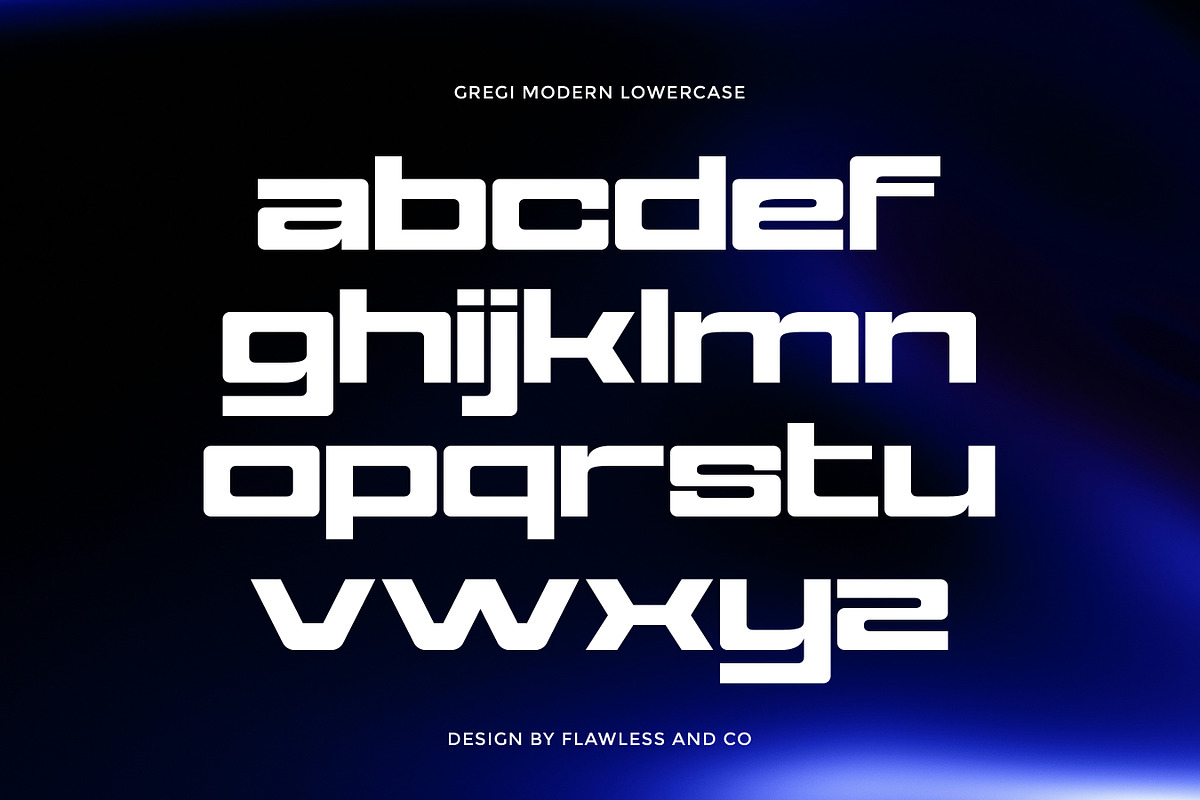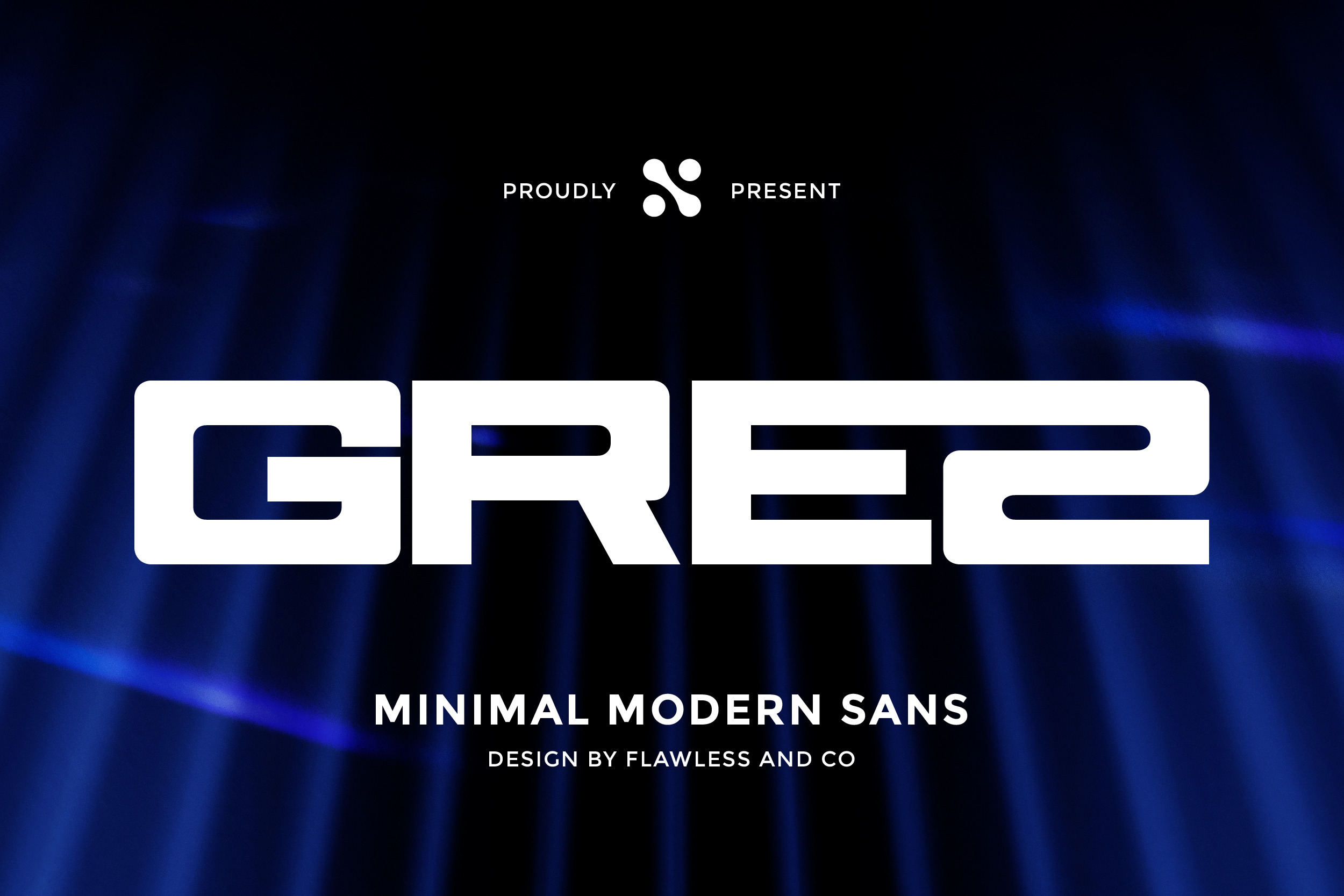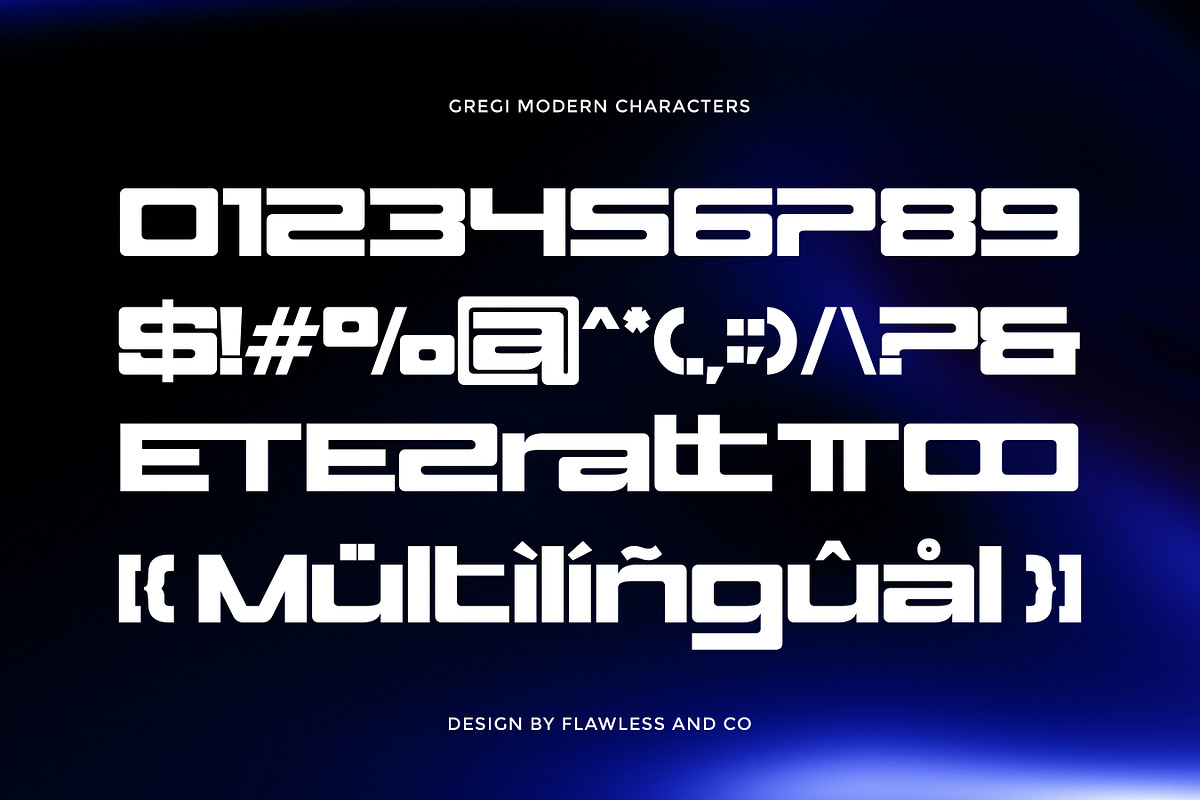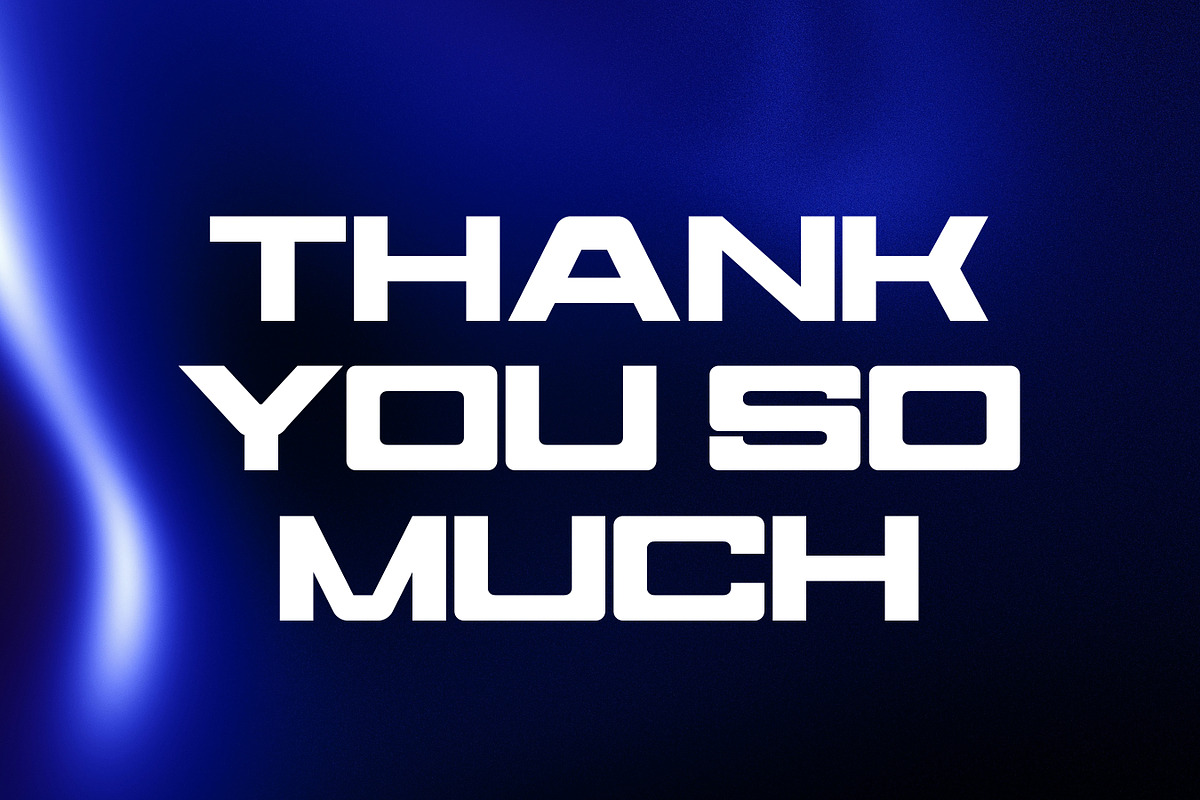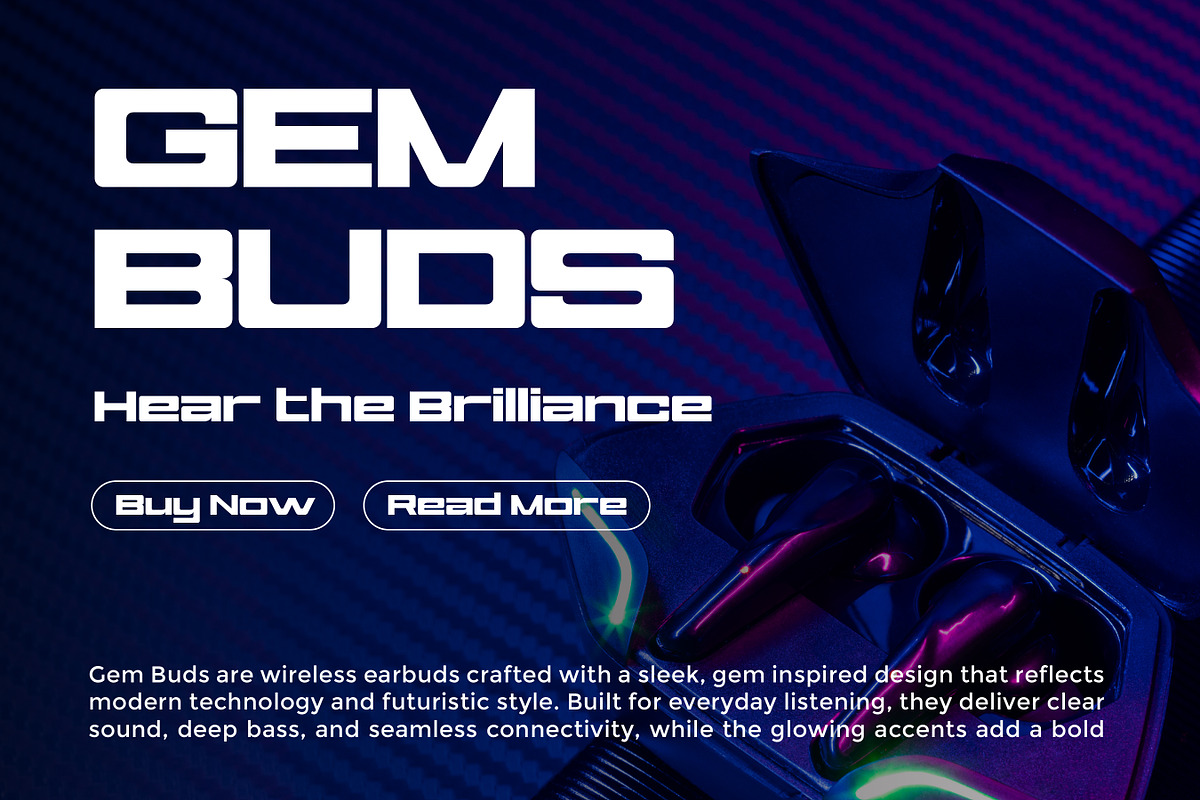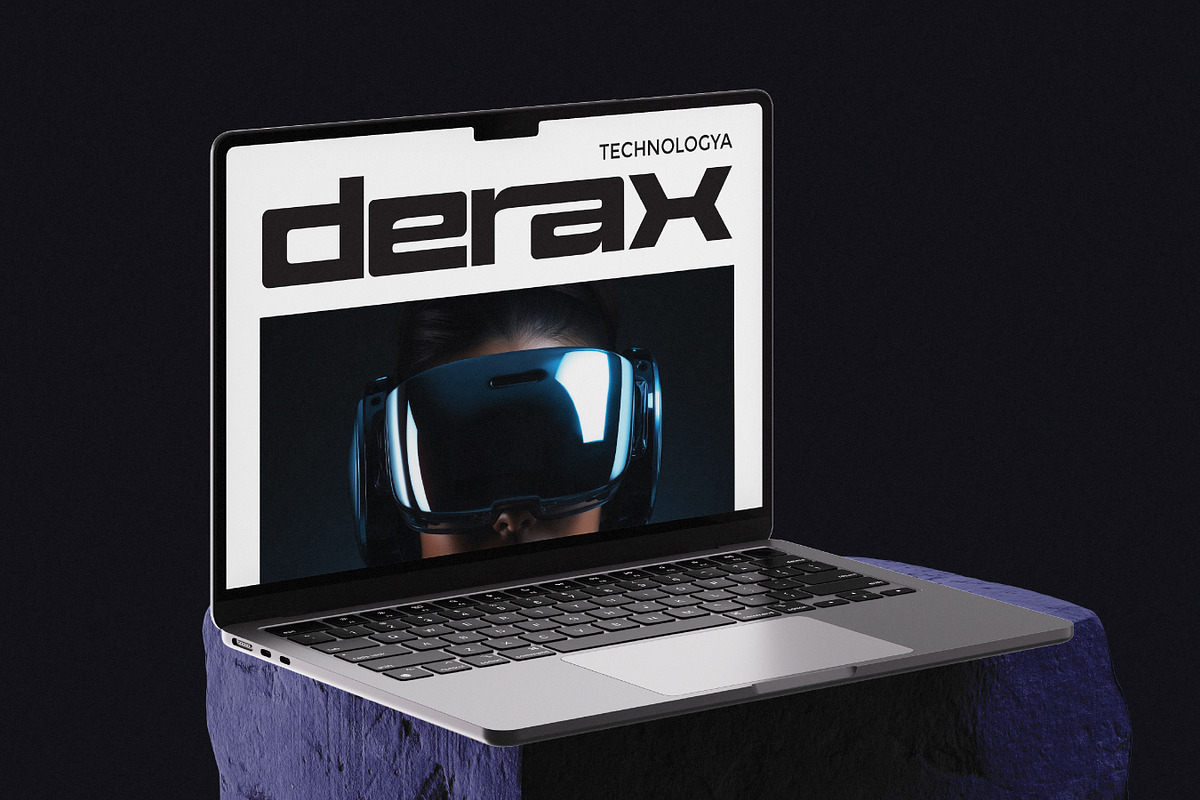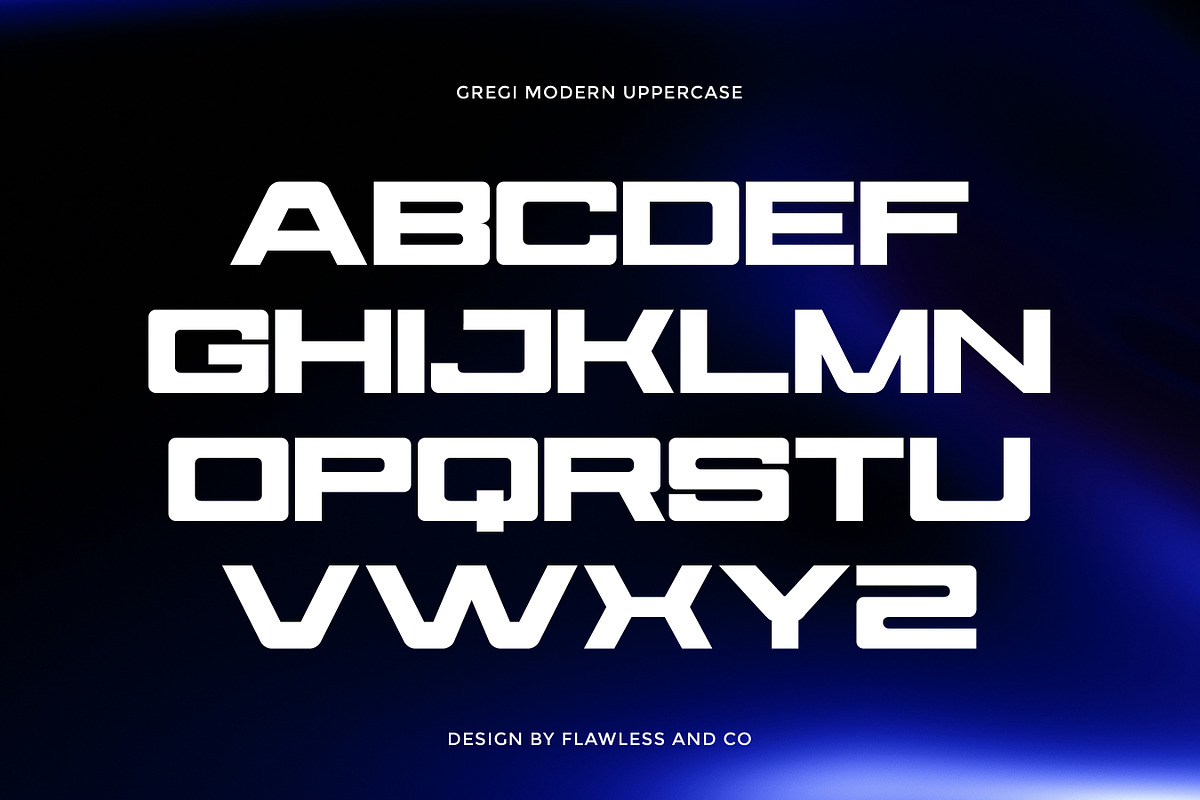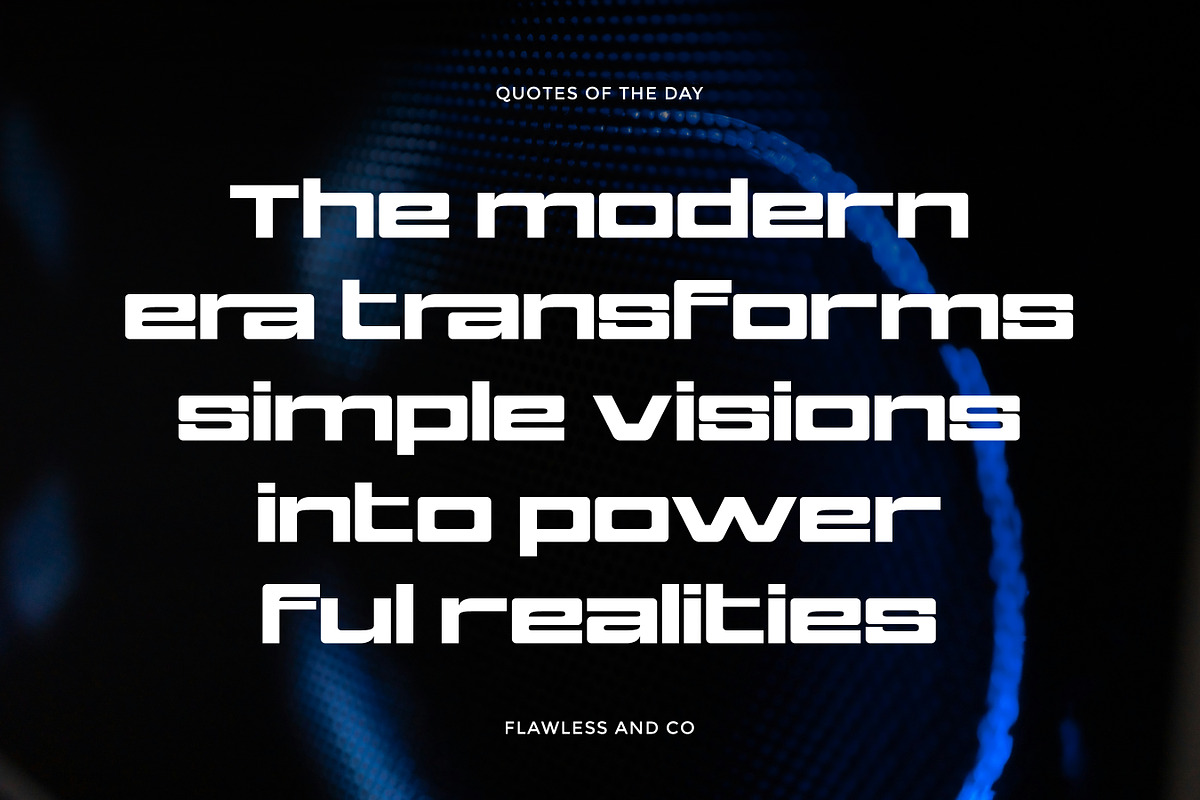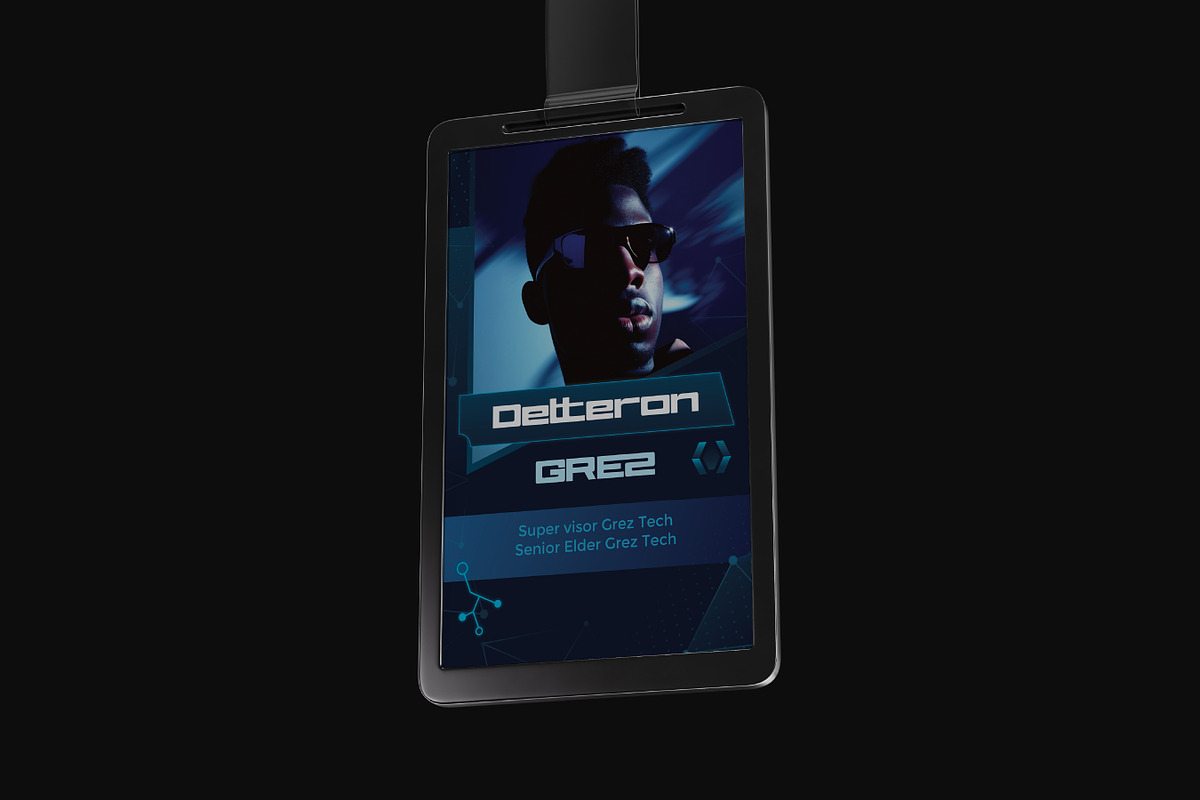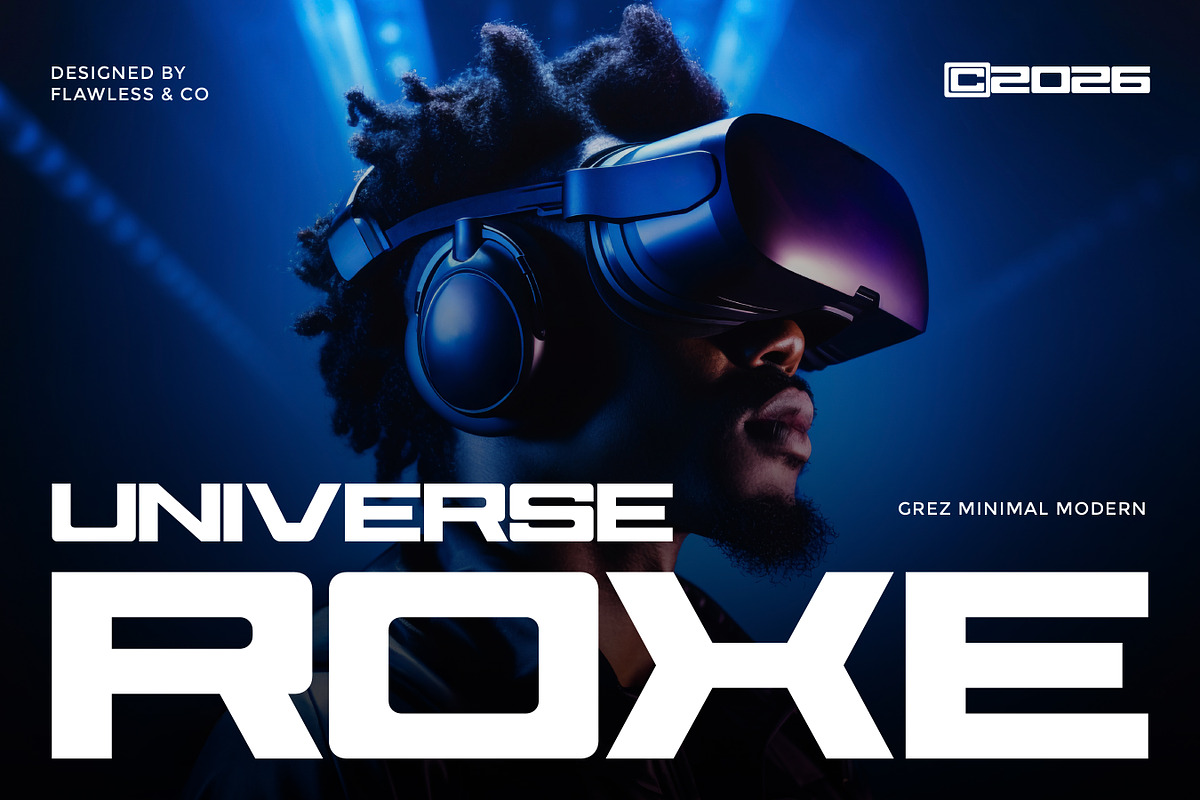
Grez - Minimal Sans Serif Font
Grez is a minimal modern bold sans font crafted to deliver a bold, assertive, and high-impact visual statement. Defined by its strong structure and clean geometry, Grez embodies clarity and confidence, making it perfect for designs that need to feel solid, direct, and powerful. Its bold weight and sharp construction create a commanding presence without sacrificing simplicity. Every letter is designed to look firm and balanced, giving your typography a sense of stability and professionalism. Grez stands out effortlessly, making it ideal for attention-grabbing compositions.
Who Should Use Grez?
Grez is ideal for designers and brands that want a modern typeface with a strong, confident, and impactful tone. It’s especially suited for projects that require bold, clean, and authoritative typography.
Suitable For:
- Bold branding and identity
- Logo and headline design
- Advertising and promotions
- Corporate and business visuals
- Packaging and product design
- Social media content
- Editorial layouts
- Strong typography compositions